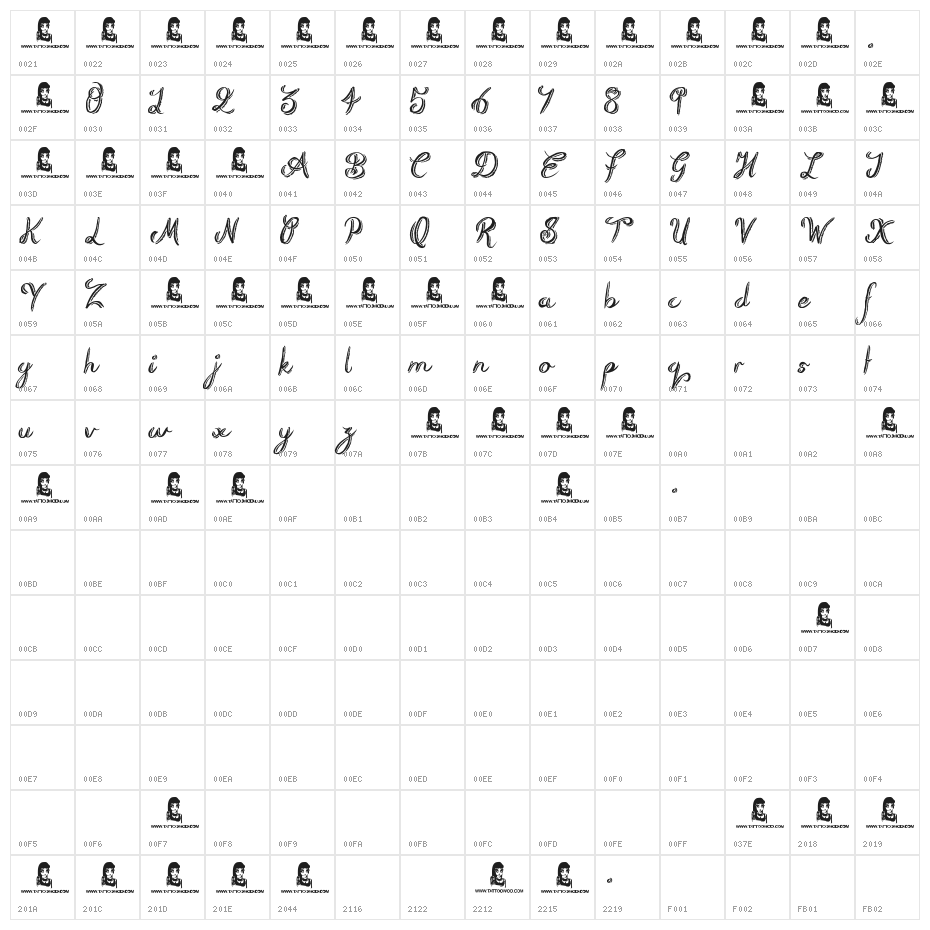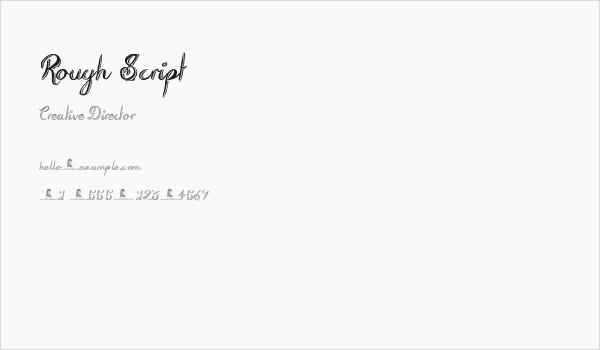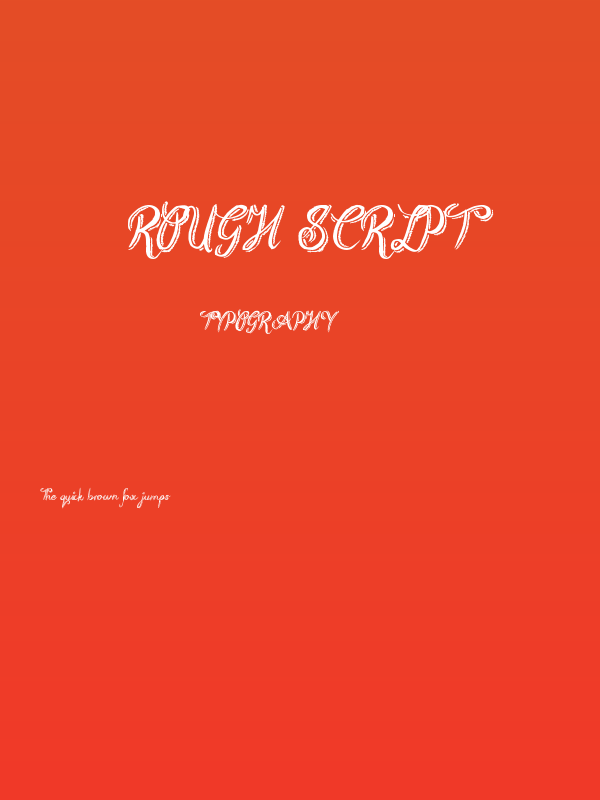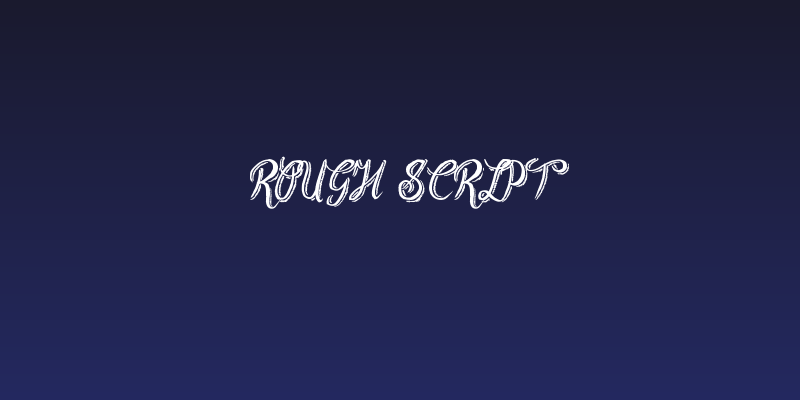
Rough Script Font
Rough Script Description
This script font exudes a dynamic and artistic flair, characterized by its rough, textured strokes that mimic the appearance of hand-drawn brushwork. The uppercase letters are bold and expressive, with sweeping curves and dramatic flourishes, while the lowercase letters maintain a fluid and connected style, enhancing the handwritten feel. The numbers and special characters are equally stylized, maintaining the font's cohesive aesthetic. This font's unique texture and movement make it ideal for creative projects that require a personal touch.